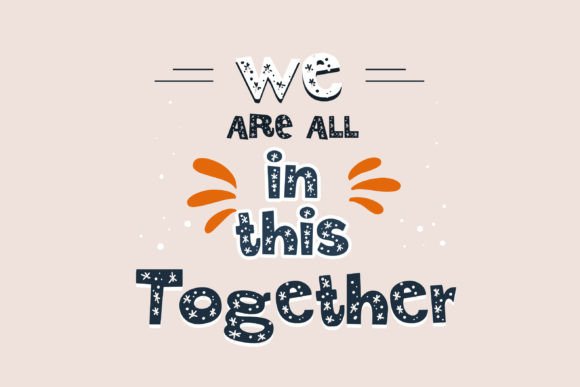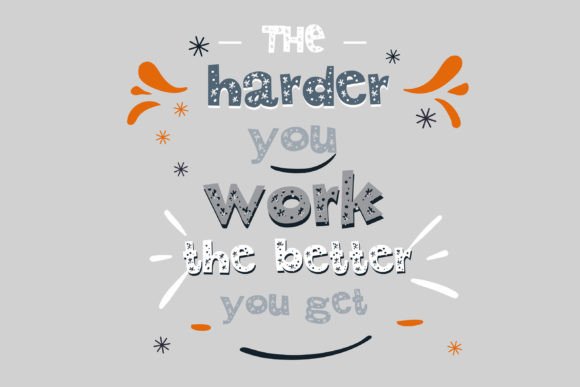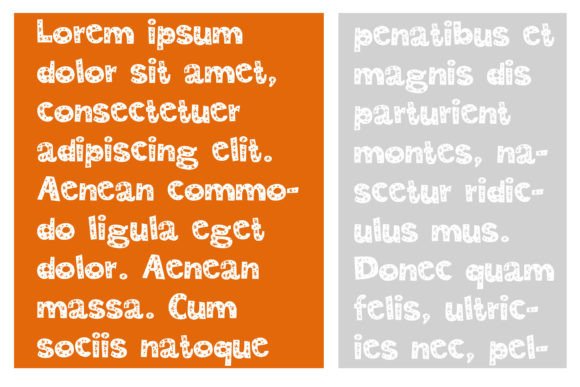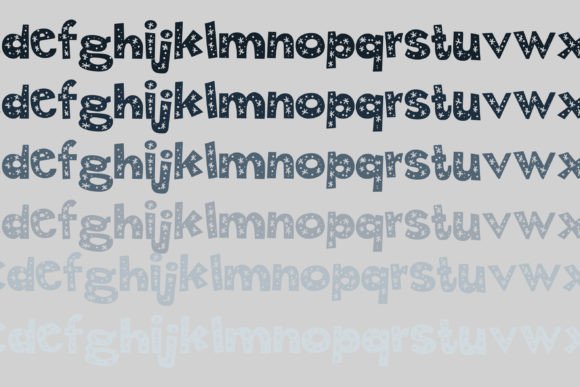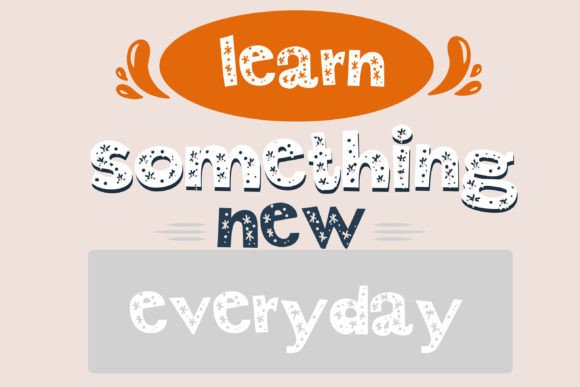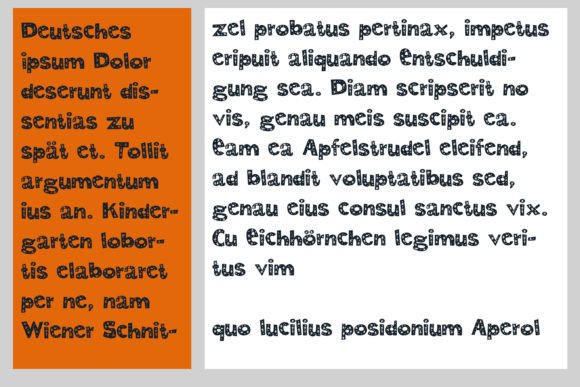
The Magic of Blizzard Font: A Hand-Crafted Delight for Designers
I still remember the time I was working on a winter-themed invitation project for a client’s holiday party. I had a clear vision of what I wanted to achieve – a warm, cozy, and inviting design that would make the guests feel like they’re experiencing a snowglobe. But, I was struggling to find the perfect font to complement my design. That’s when I stumbled upon Blizzard Font, a hand-crafted font that features a chunky sans serif filled with snow. It was love at first sight! 💕
An Honest Review of Blizzard Font
- 💫 Unique and quirky design that adds a touch of whimsy to any project
- ✅ Easy to read, even in large and small sizes
- 🎨 Highly versatile and can be used for a variety of design projects, from invitations to social media graphics
While Blizzard Font is an amazing addition to any design project, there are a few things to keep in mind:
- 🤔 The font can be a bit overused, so make sure to balance it with other design elements
- ⚠️ Some characters may not be suitable for body text, so it’s best to use it for headings or titles
The Backstory of Blizzard Font
Blizzard Font was designed by a talented typographer who wanted to capture the magic of snowfall in a digital font. Inspired by the intricate patterns of snowflakes, the designer created a font that’s both playful and elegant. The result is a unique and versatile font that’s perfect for a variety of design projects.
Q: What is Blizzard Font?
A: Blizzard Font is a hand-crafted font that features a chunky sans serif filled with snow. It’s perfect for winter-themed designs, invitations, and other creative projects.